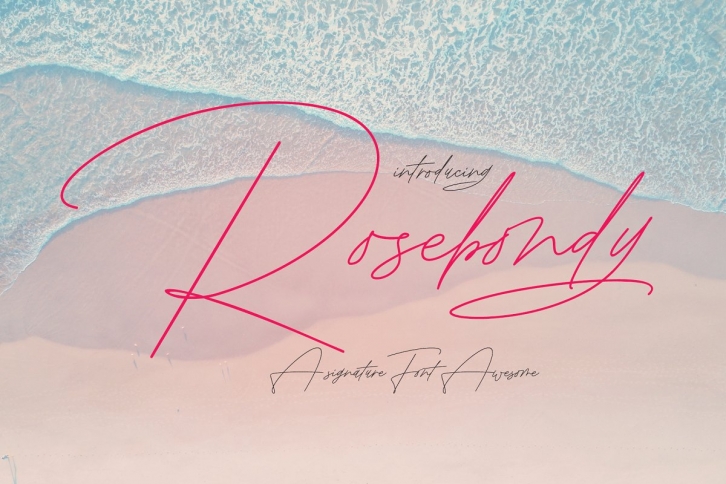
Rosebondy Signature FONT Download
INTRO Rosebondy Signature, is another lovely modern signature and mono line font, which is combining the style of classic signature with an modern style. combines from copperplate to contemporary typeface with a dancing baseline, modern and elegant touch. including alternates, and ligatures.